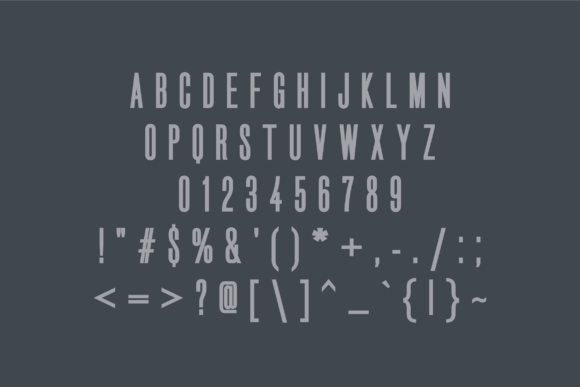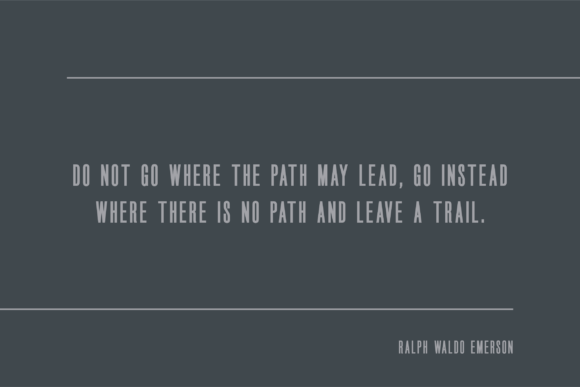
Introducing Apollonios: The Ultimate Modern Sans Serif Typeface
In the world of typography, a great font can make all the difference in elevating your design to the next level. If you’re a designer, craft, or simply a DIY enthusiast, you’re in luck! We’re excited to introduce Apollonios, a modern, classy sans serif typeface that’s about to become your go-to font for a wide range of projects.
What is Apollonios Font?
Apollonios is a sleek and sophisticated sans serif typeface that features a comprehensive character set, including upper case characters, numbers 0-9, and a range of punctuation and symbols. This versatile font is designed to be used in a variety of contexts, from logos and branding to weddings, invitations, quotes, advertisements, print materials, magazines, and more!
Key Features of Apollonios Font
- Modern and Classy Design: Apollonios boasts a clean, contemporary design that’s perfect for designers and crafters looking for a fresh, stylish look.
- Comprehensive Character Set: With upper case characters, numbers 0-9, and a range of punctuation and symbols, Apollonios has everything you need to create stunning text-based designs.
- Extremely Versatile: Whether you’re working on a logo, invitation, or magazine, Apollonios is the perfect font to add a touch of sophistication and elegance.
Use Cases for Apollonios Font
So, where can you use Apollonios? The possibilities are endless! Here are some ideas to get you started:
- Logos and Branding: Create a lasting impression with a custom logo or brand identity that showcases your unique style.
- Weddings and Invitations: Add a touch of elegance to your wedding invitations, save-the-dates, or thank-you cards.
- Quotes and Typography: Create stunning quote posters, social media graphics, or blog posts that showcase your favorite quotes.
- Advertisements and Marketing: Stand out from the crowd with eye-catching ads, flyers, or brochures that grab attention.
- Print Materials and Magazines: Elevate your print designs with a sophisticated font that’s perfect for articles, headlines, or captions.
Why Choose Apollonios Font?
With so many fonts available, why choose Apollonios? Here are just a few reasons why designers and crafters love this modern sans serif typeface:
- Unique and Memorable: Apollonios offers a distinctive design that’s sure to make your projects stand out from the crowd.
- Easy to Read: The clean, sans serif design makes it easy to read, even at small sizes.
- Highly Versatile: With a comprehensive character set and flexible design, Apollonios can be used in a wide range of contexts.
In conclusion, Apollonios is an exceptional modern sans serif typeface that’s perfect for designers, crafters, and DIY enthusiasts. With its comprehensive character set, versatile design, and sophisticated style, it’s the ultimate font for a wide range of projects. Whether you’re working on a logo, invitation, or magazine, Apollonios is sure to elevate your design to the next level.